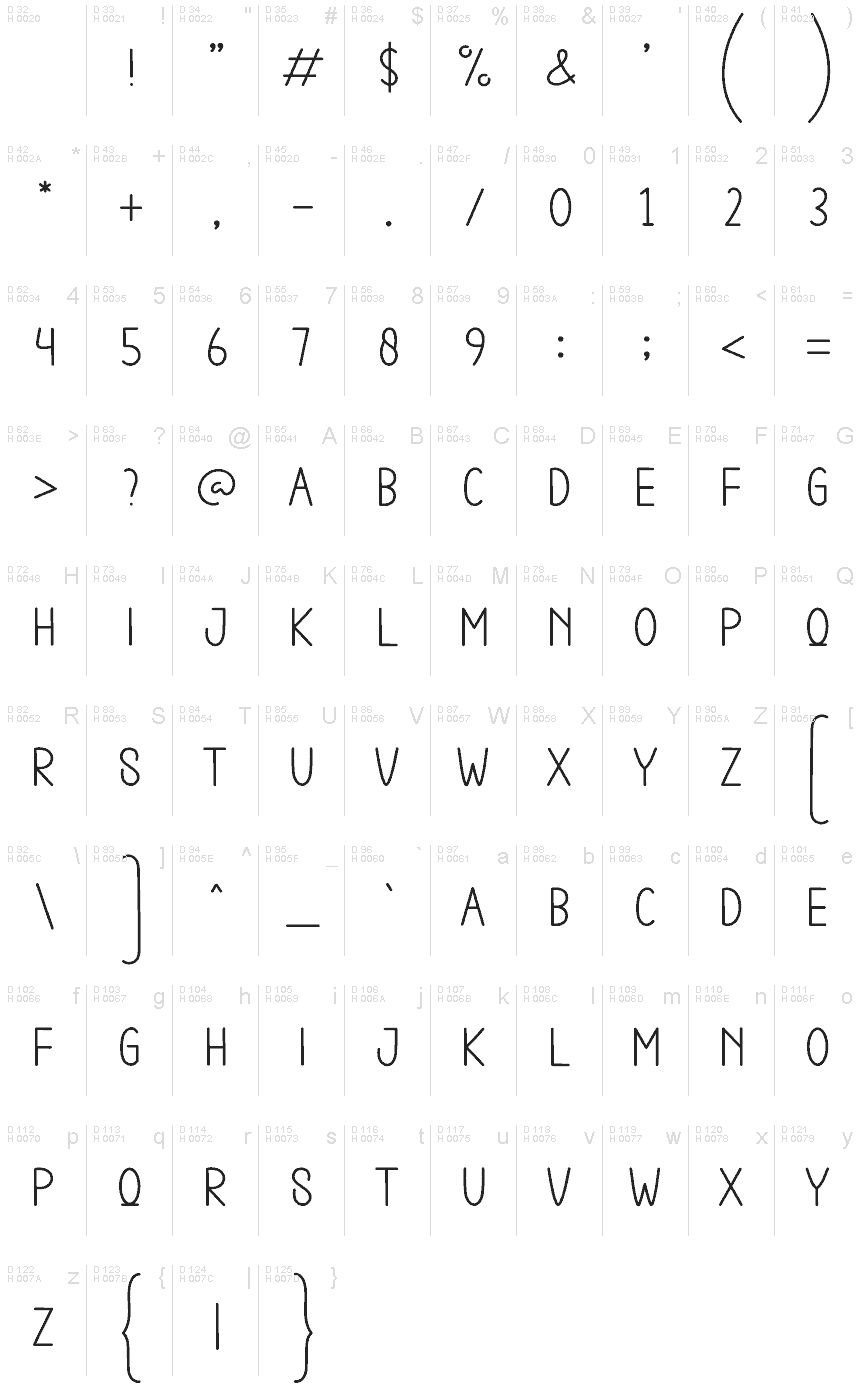
Going Up
Going Up font by Andi Moz is a modern, geometric, minimalist handwritten font with a clean and simplistic appearance. This light condensed font has an easily readable look making it well-suited for contemporary applications in which legibility is key.